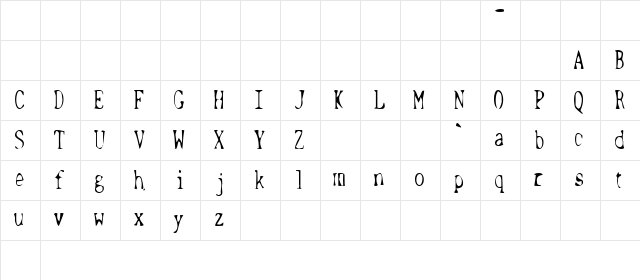
Territorial Enterprise Demo Regular
Design Context for Territorial Enterprise Demo
Territorial Enterprise Demo is a composed and adaptable typeface that performs quietly and consistently across a wide range of design contexts.
Pro Tip: Use Territorial Enterprise Demo in both headline and body roles to test its range before committing to a single application.